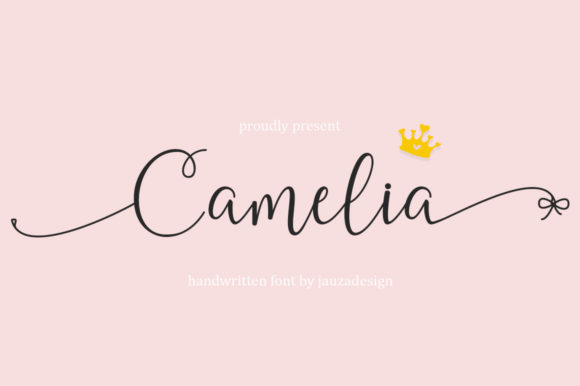
The Elusive Font: My Journey with Camelia
I still remember the design project that led me to discover the beautiful Camelia font. I was working on a client’s branding project, and I needed a font that was elegant, yet subtle. I had a vision of a delicate script font that would add a touch of sophistication to the design. After hours of searching, I stumbled upon Camelia, and it was love at first sight! 💕
Camelia is a thin lettered and delicate script font that has become a staple in my design toolkit. In this article, I’ll share my experience with Camelia, its features, and how to make the most of it in your designs.
An Honest Review of Camelia
What I Love About Camelia ✨
- 💫 Delicate and elegant design that’s perfect for branding, invitations, and more
- ✅ PUA encoded, making it easy to access all the amazing glyphs and ligatures
- 🎨 Highly versatile and can be used for a variety of design projects, from digital to print
- 🖌️ Beautifully crafted with attention to detail, making it a joy to work with
While Camelia is an amazing font, there are a few things to keep in mind:
- 🤔 Some users may find the font a bit too thin for certain design projects, so it’s essential to test it before committing
- ⚠️ As with any script font, it may not be suitable for body text or long-form content, but perfect for headings and titles
The Designer Inspiration Behind Camelia
While the true story behind Camelia’s creation is unknown, it’s easy to imagine that the designer was inspired by the beauty of nature and the elegance of handwritten script. Perhaps they wanted to create a font that would evoke feelings of sophistication and refinement. Whatever the inspiration, Camelia is a stunning font that deserves to be celebrated.
Q: What is PUA encoding, and how does it benefit Camelia users?
A: PUA (Private Use Area) encoding allows users to access a wide range of glyphs and ligatures, making it easier to create beautiful and unique designs.
Q: Is Camelia a versatile font that can be used for various design projects?
A: Absolutely! Camelia is a highly versatile font that can be used for a wide range of design projects, from digital to print, and from branding to invitations.
Q: Can I use Camelia in combination with other fonts?
A: Yes, Camelia can be paired with other fonts to create a unique and visually appealing design. Experiment with different font combinations to find the perfect match for your project.